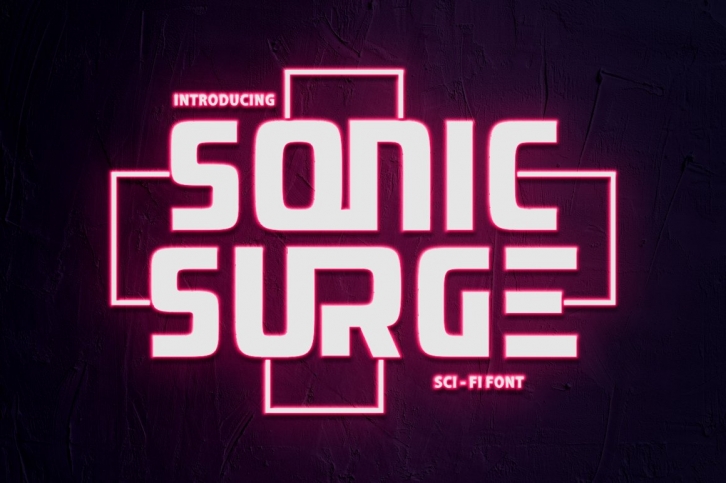
Sonic Surge is a beautiful font that was designed by PutraCetol Studio. It's a great choice for designers and creatives who need such a font. It was released on October 12, 2022 and the file size is 4.77 MB. Sonic Surge may give a more youthful, expressive and casual look to your project. It is a very beautiful, refined, elegant, and high-quality font.